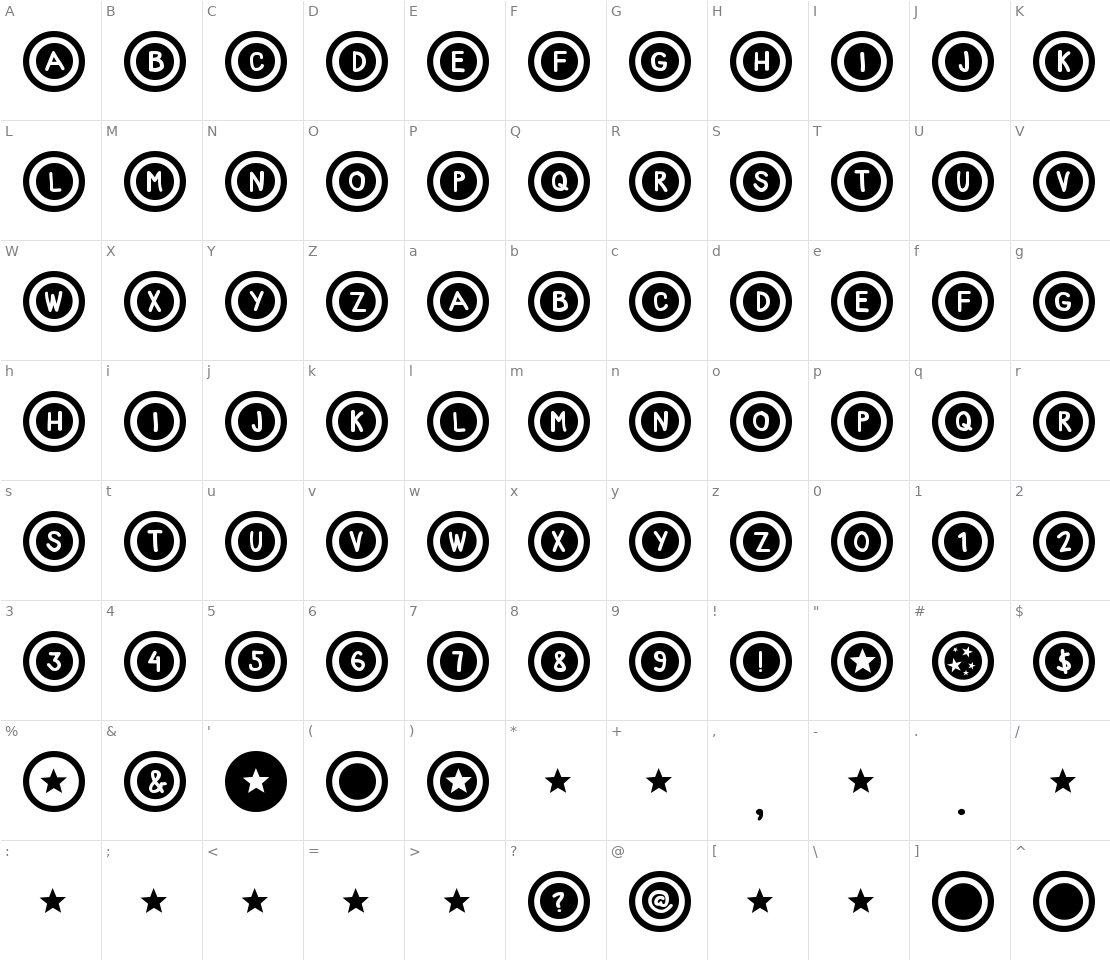
Dialtone
Dialtone is a novelty display face from Dinc TYPE where each uppercase letter sits inside a circle, mimicking the look of old rotary telephone dials or vintage badge designs. The encircled letterforms give it a strong retro character that works for logos, posters, and themed headlines, though the circular framing means it needs generous sizing to stay legible. A quirky, single-purpose typeface with a lot of personality when used in the right context.